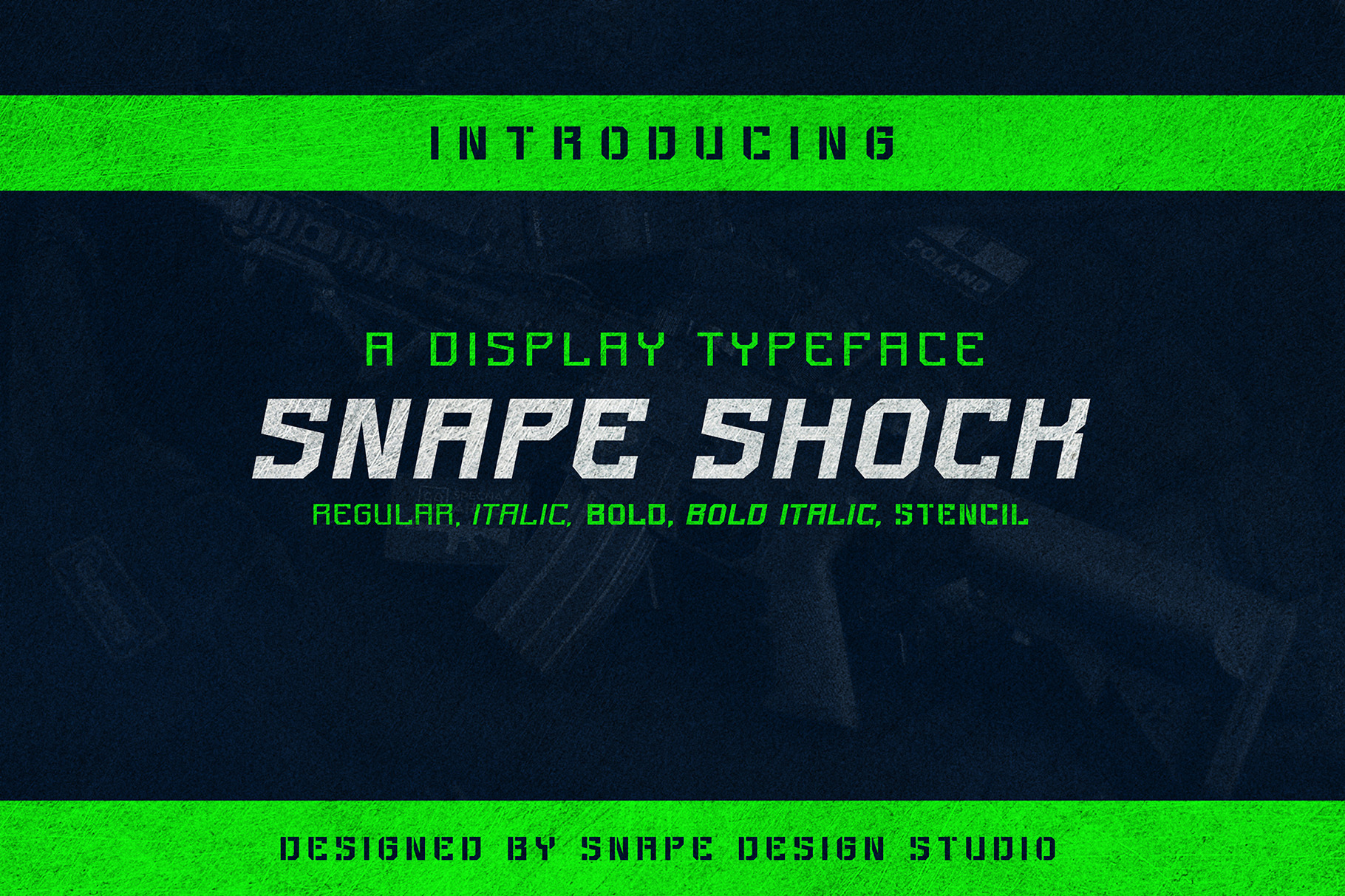
Snape Shock - Strong Display Font
Snape Shock is a bold and authentic display font. It celebrates abstract shapes in all their eclectic brilliance. Add this font to your creative ideas and notice how it will make them stand out!
Great for Logo, Sticker, Jersey, Invitation Card, Brochure, etc.